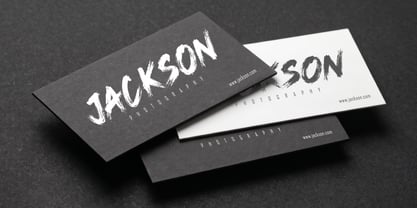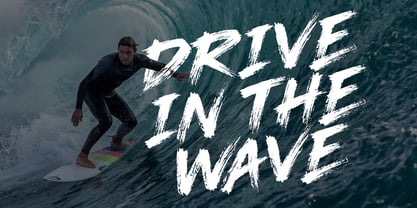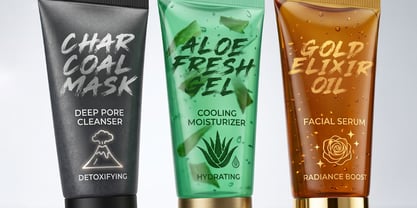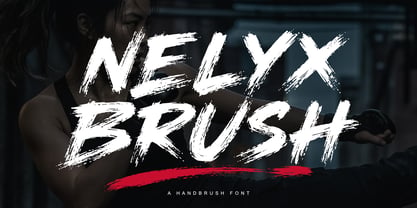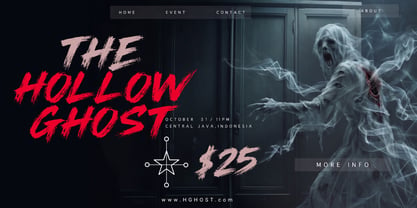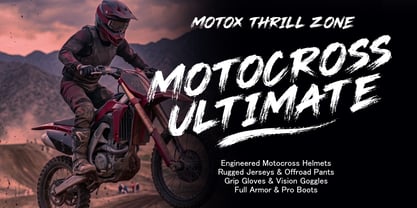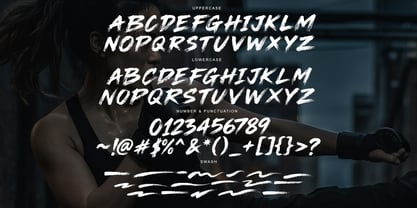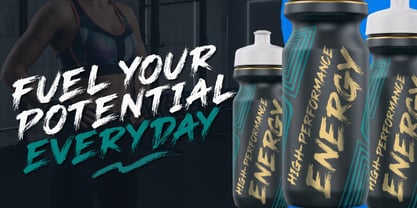
Nelyx Brush
Die Schriftfamilie Nelyx Brush wurde von Saiful Anwar entworfen und von Sealoung veröffentlicht. Nelyx Brush enthält 1 Stile. Mehr über diese Familie
Nelyx Brush is a bold handbrush typeface designed to deliver raw energy and expressive character. Built with dynamic strokes and rough textures, this font captures the authentic feel of real brush movement, making every letter look powerful, aggressive, and full of motion.
Perfect for projects that demand a strong visual impact, Nelyx Brush brings a modern urban edge combined with handcrafted aesthetics. The irregular edges and natural flow create a sense of speed and intensity, ideal for standout typography.